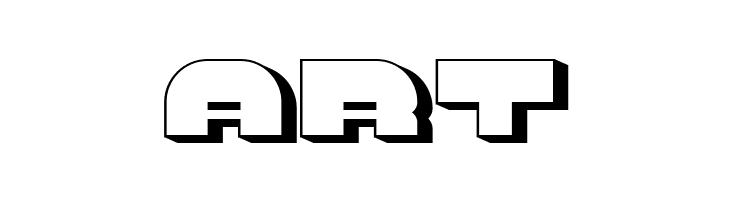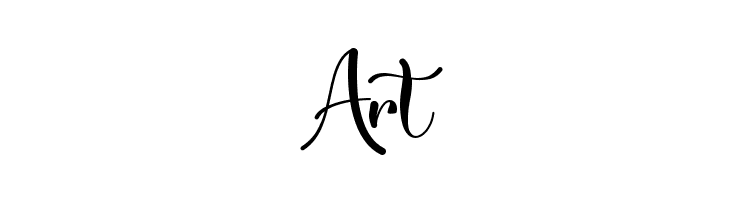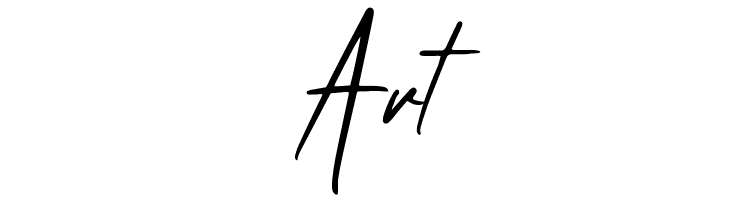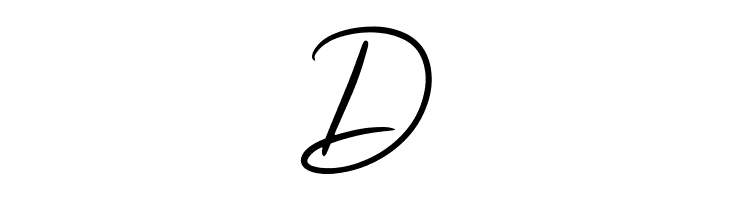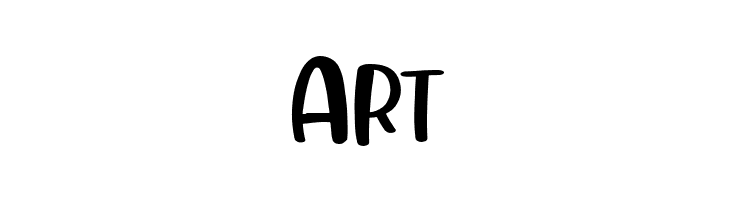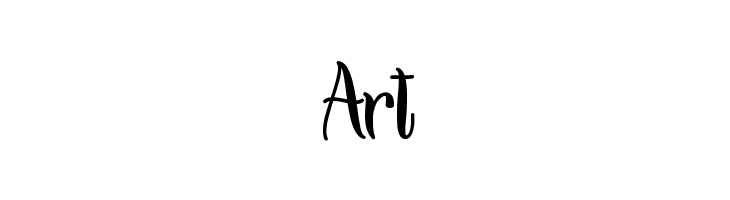
A dynamic, cursive script with a hand-drawn, calligraphic style.
A playful, casual handwritten font with smooth, flowing lines.
A playful, handwritten font with smooth curves and a casual style.
A dynamic, expressive handwritten font with fluid, cursive letterforms.
A bold, playful script font with smooth curves and whimsical details.
A flowing, handwritten font with elegant curves and a playful yet sophisticated style.
A playful and elegant script font with a handwritten style.
A bold, playful handwritten font with rounded strokes and a casual style.
A bold, playful font with rounded edges and a bubbly appearance.
A playful and whimsical script font with a hand-drawn, cursive style.